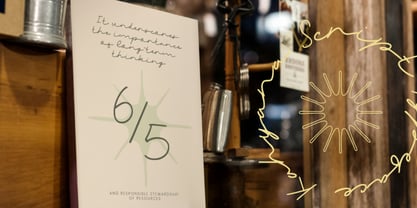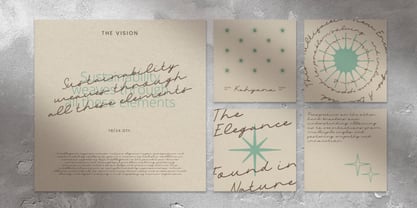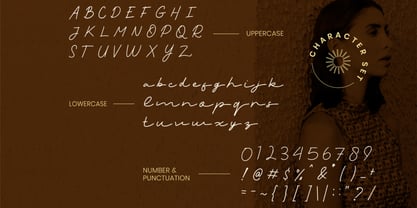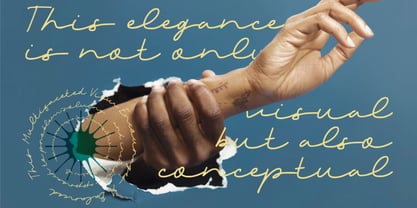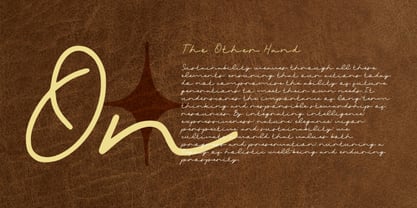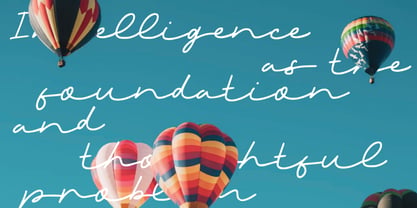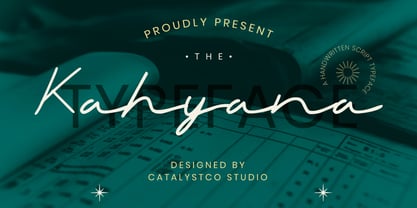
Kahyana
by Catalystco Std
Kahyana is a refined handwritten script typeface that embodies effortless sophistication. With fluid strokes and organic rhythm, it captures the authenticity of elegant handwriting while maintaining excellent readability. Its natural flow and subtle contrast make it ideal for branding, wedding stationery, packaging, and signature-style logos. Includes uppercase, lowercase, numerals, and punctuation characters. Kahyana offers a perfect balance of modern grace and handcrafted charm — a timeless, expressive font for creative visual identities and elegant design projects.